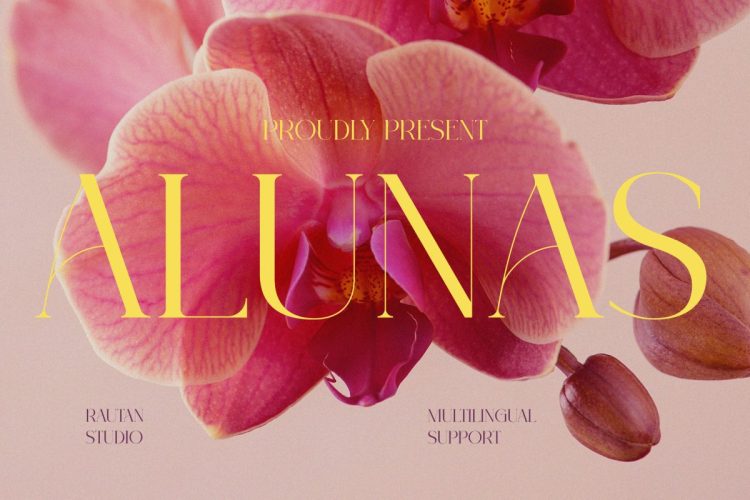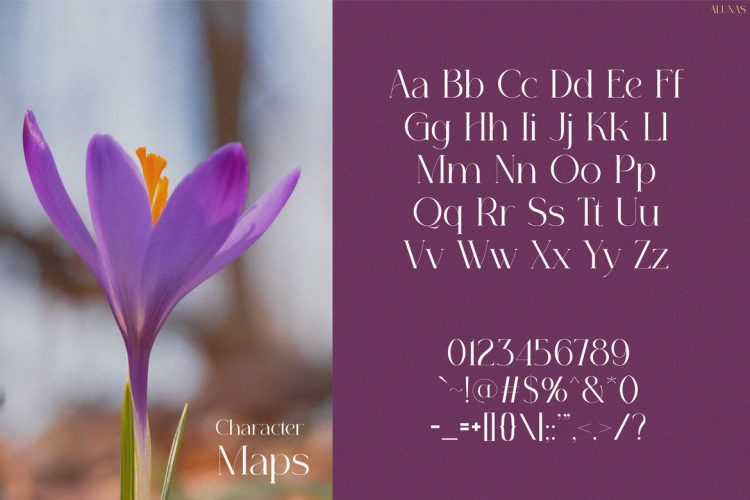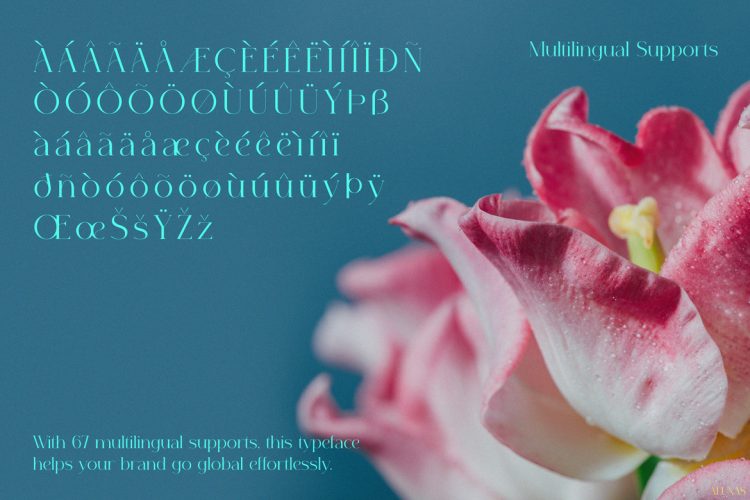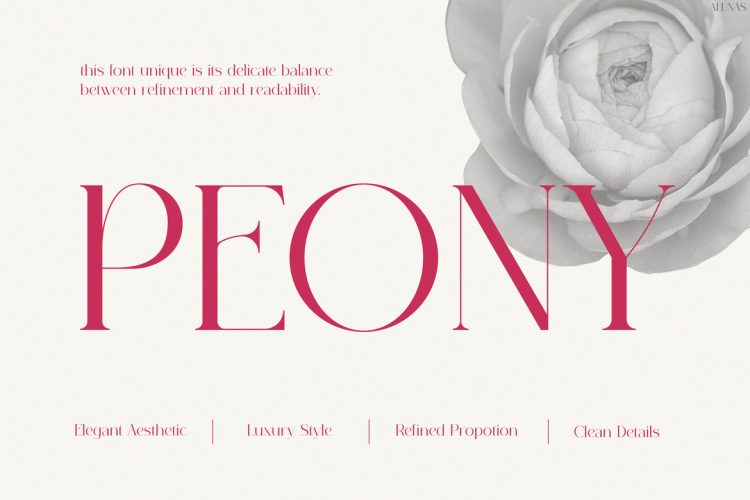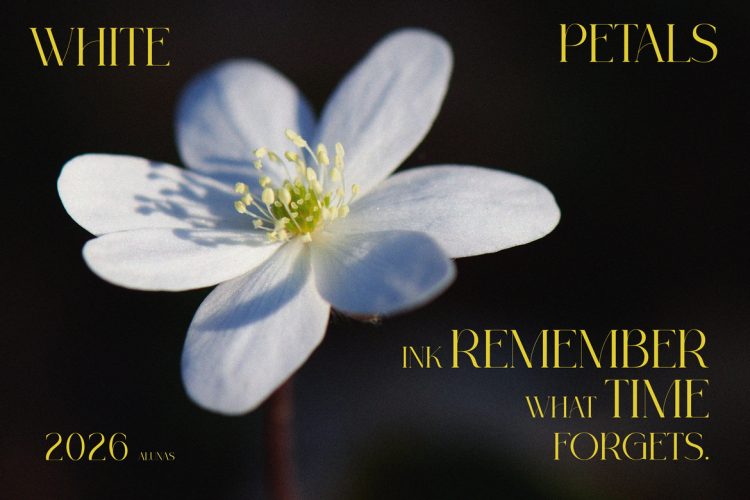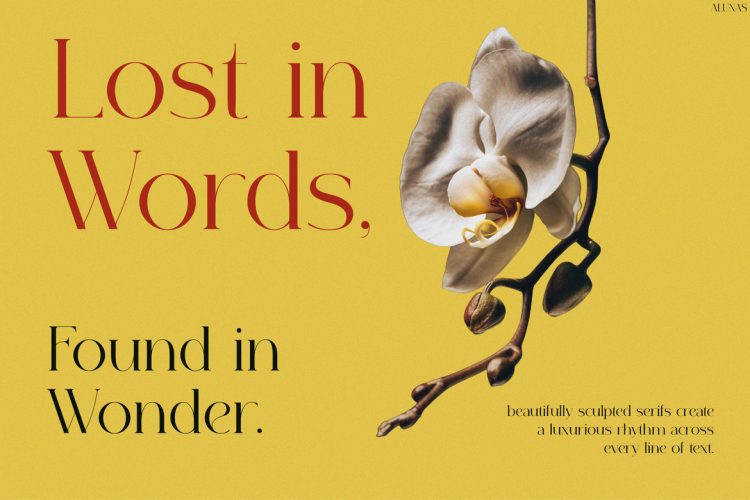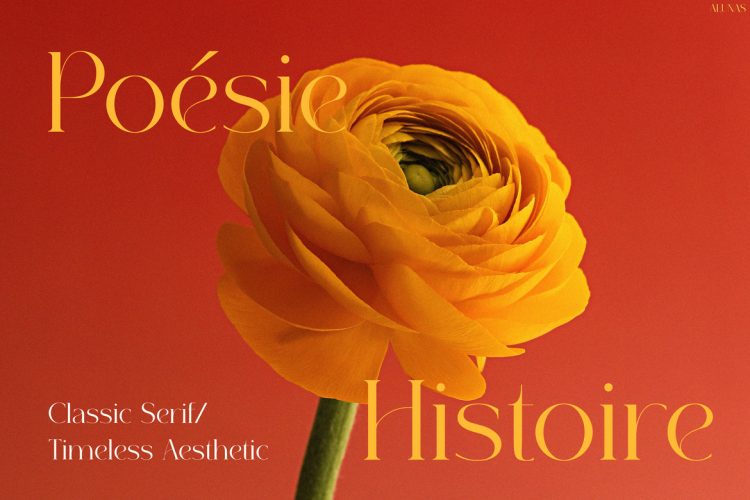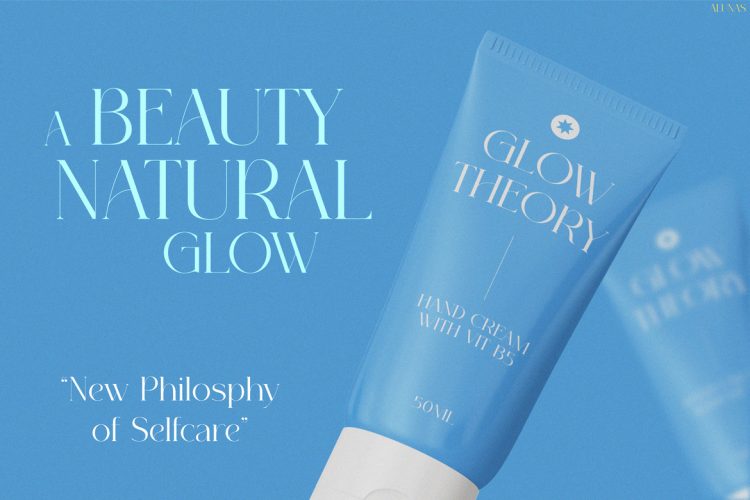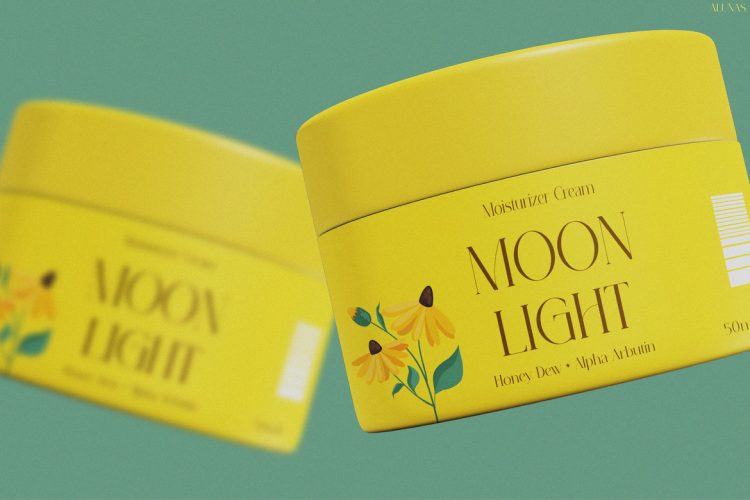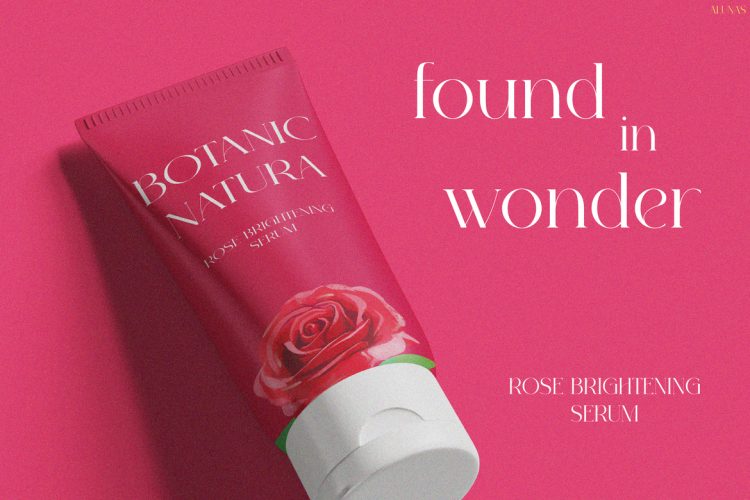
Instagram Font Alunas โ Bloom with Elegance, Speak with Style.
Instagram Font Alunas brings the softness of blooming flowers into a graceful editorial serif that feels fresh, poetic, and naturally sophisticated. Instead of competing for attention with excessive details, Alunas captures hearts through delicate curves, refined contrast, and elegant proportions. Moreover, every letter flows with effortless beauty, creating headlines that feel light yet unforgettable. As a result, your designs express warmth, femininity, and timeless charm. At the same time, the balanced structure keeps every word crisp and readable in both print and digital formats. Furthermore, Multilingual Support for 67 languages helps your message blossom beautifully across international audiences.
Where Creativity Blossoms
Instagram Font Alunas inspires designers to create visual stories filled with elegance and emotion. Not only does it elevate typography, but it also adds a refined botanical atmosphere to every composition. In addition, its graceful personality suits skincare branding, floral packaging, perfume labels, boutique fashion, wedding stationery, lifestyle magazines, cafรฉ branding, beauty campaigns, premium websites, and Instagram content. Likewise, its editorial character blends seamlessly with minimalist layouts and nature-inspired photography. Meanwhile, the extensive multilingual character set supports global communication without sacrificing style. Consequently, every project feels more authentic, memorable, and visually harmonious.
Instagram Font Perfect For
- Beauty and skincare brands
- Floral and botanical packaging
- Wedding invitations
- Fashion editorials
- Perfume and cosmetic branding
- Boutique cafรฉs
- Lifestyle magazines
- Instagram and social media graphics
Let Every Letter Bloom
If your brand deserves typography that feels elegant and full of life, Alunas is ready to bring your vision to life. Furthermore, its timeless beauty instantly elevates every layout with effortless sophistication. As a result, your branding becomes more refined, emotional, and unforgettable. Finally, choose Alunas today and let every design bloom with confidence, beauty, and lasting impression.